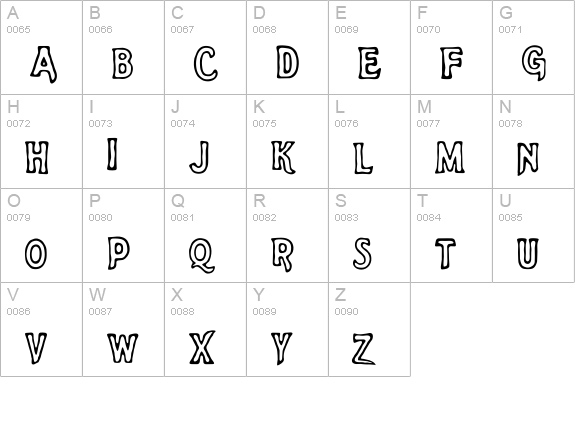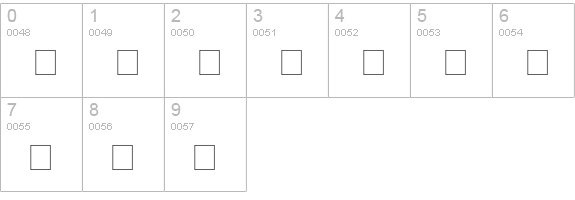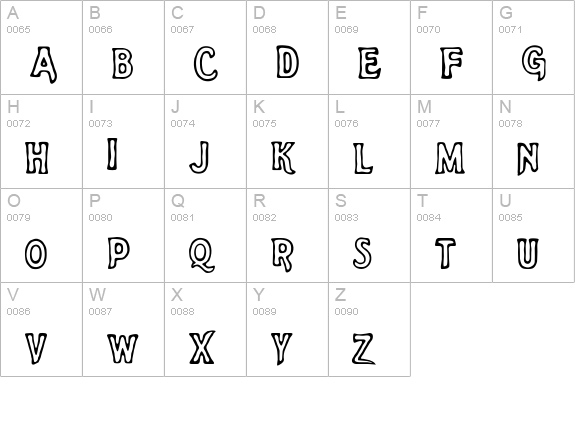
quixotic anke Font Details
Quixotic Anke Font is a whimsical and playful typeface that exudes charm and creativity. Its unique design features quirky flourishes and a handcrafted aesthetic that adds a touch of magic to any project. This font is perfect for adding a sense of wonder and imagination to your designs, whether you're working on invitations, posters, or branding materials. What makes Quixotic Anke Font even more special is that it is available for free download at FontsMarket.com. This means that you can easily access this delightful typeface and use it in your projects without any cost. Embrace the free-spirited nature of Quixotic Anke Font and let your creativity soar with this enchanting and captivating typeface.